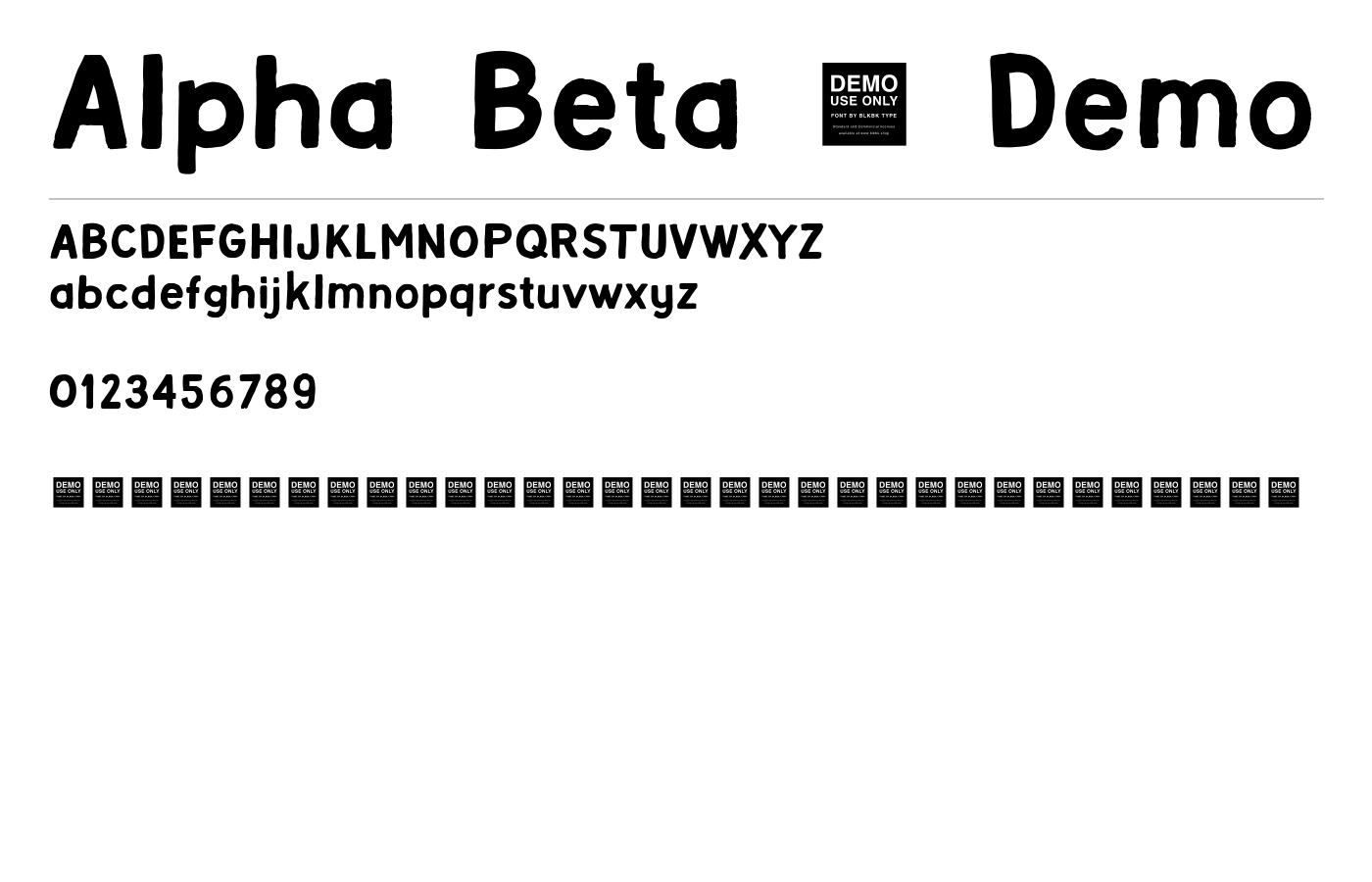
Alpha Beta is a playful, bold sans serif font featuring slightly irregular, hand-drawn letterforms that give it a casual and approachable feel. Its medium weight and rounded edges make it ideal for informal branding, children’s media, and friendly headlines where a warm and inviting tone is desired. This font works well for projects seeking personality and charm without sacrificing readability.
Alpha Beta - Demo Font
About Alpha Beta - Demo Font